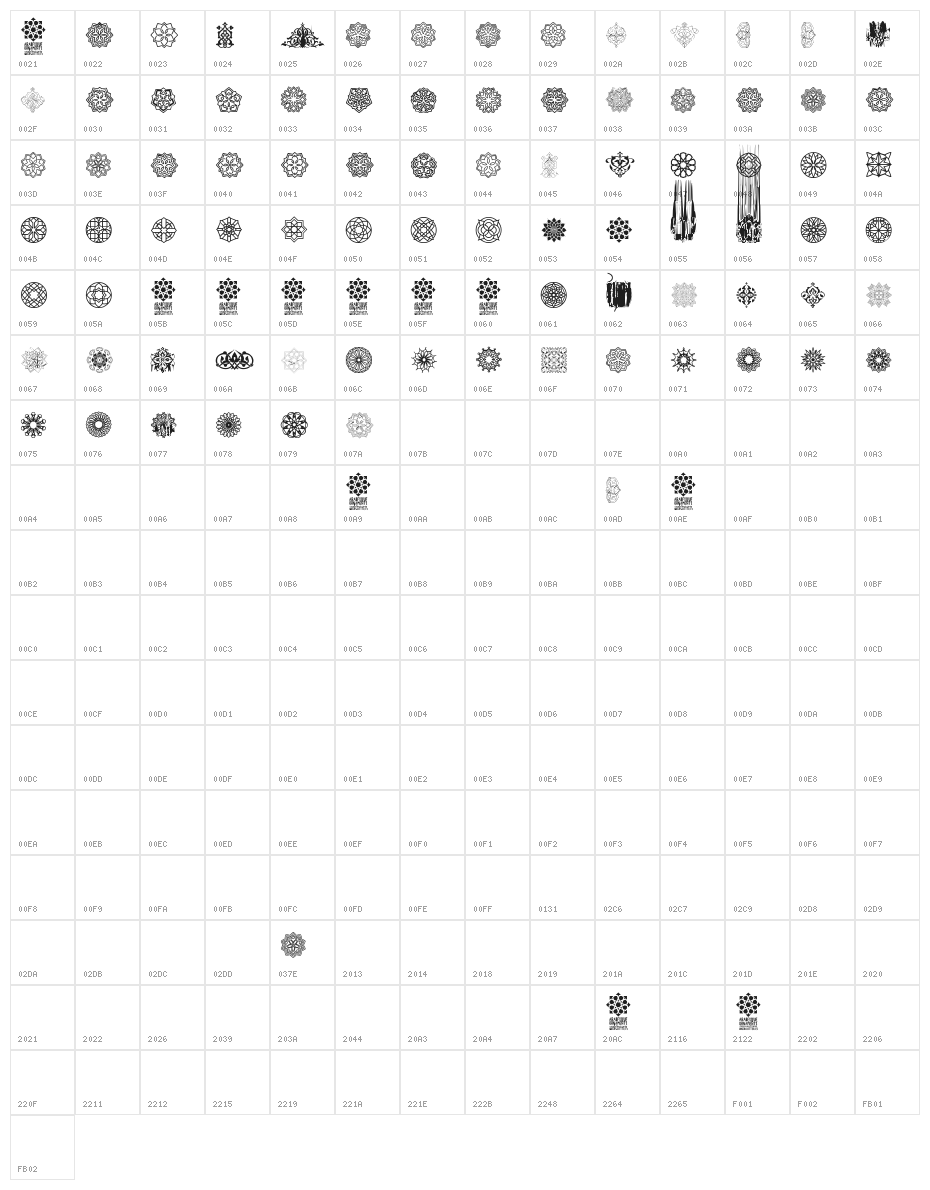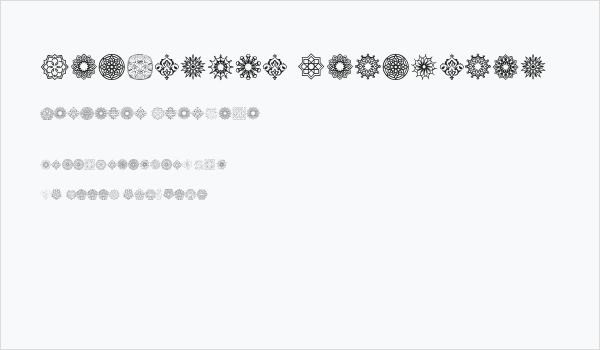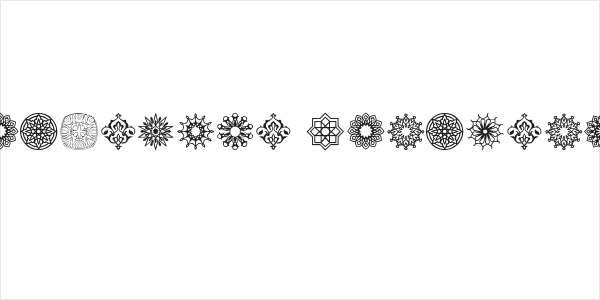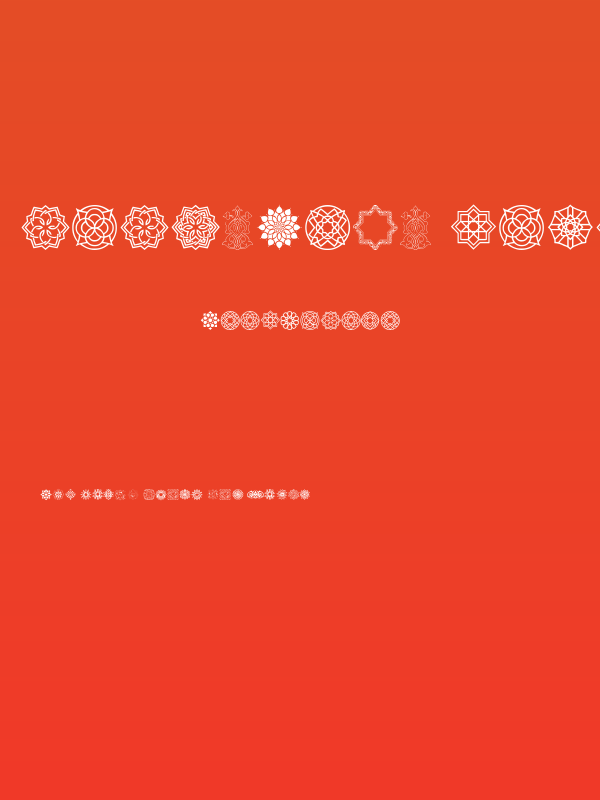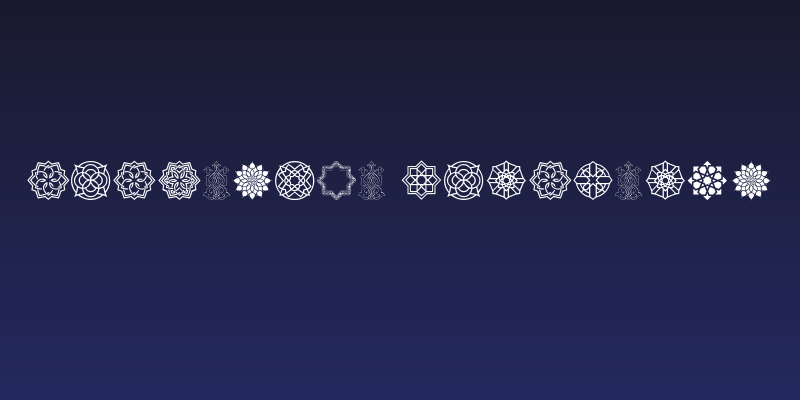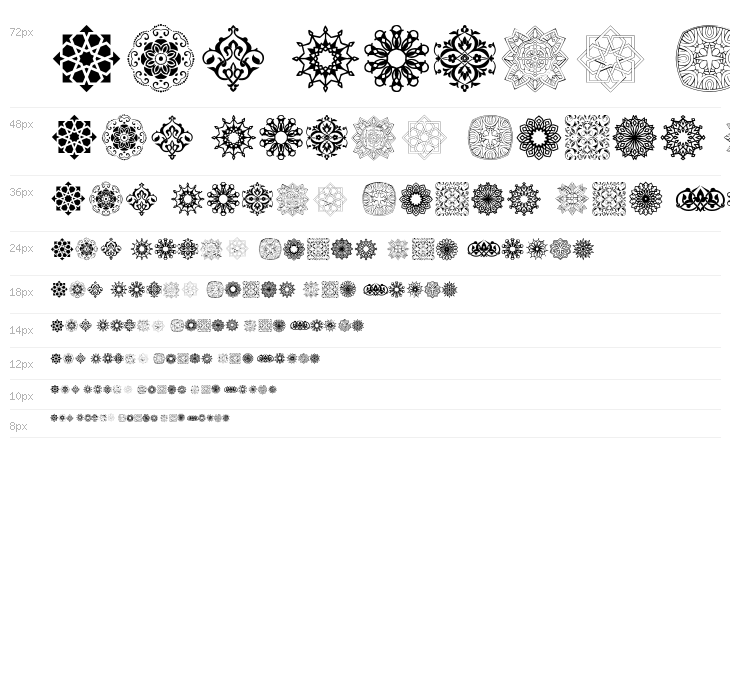
Arabesque Ornaments Font
Arabesque Ornaments Description
A collection of intricate, geometric, and symmetrical ornamental glyphs inspired by traditional Arabesque patterns, featuring interlacing lines, floral motifs, and star-like shapes. The designs are highly decorative, with varying stroke weights and levels of detail, suitable for embellishment and artistic applications.
| Overall Style | Decorative, Traditional, Ornamental |
| Use Case | Logos, Borders, Decorative accents, Graphic design elements |
| Proposed Projects | Book covers, invitations, branding, packaging, digital borders, certificates, decorative dividers, textile patterns. |